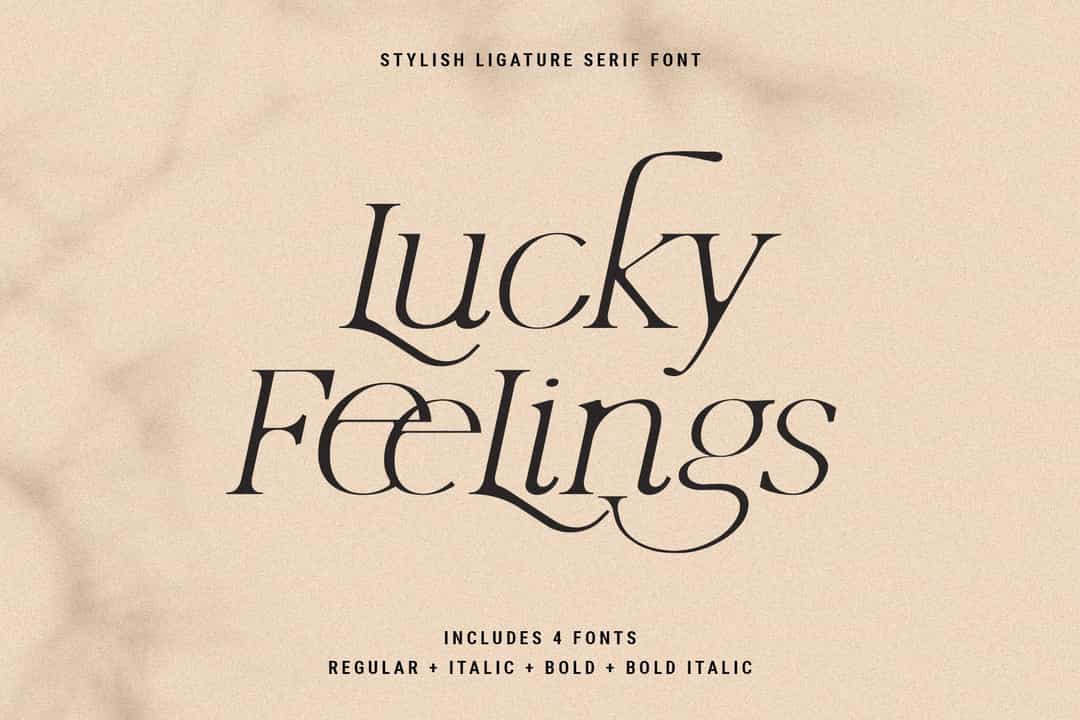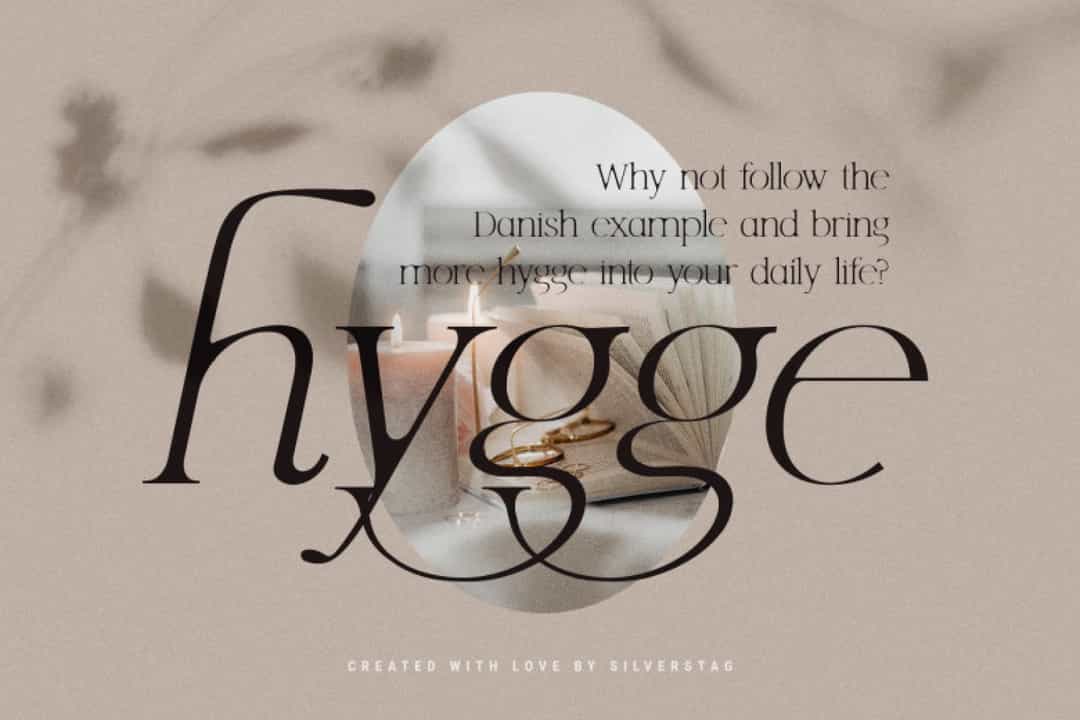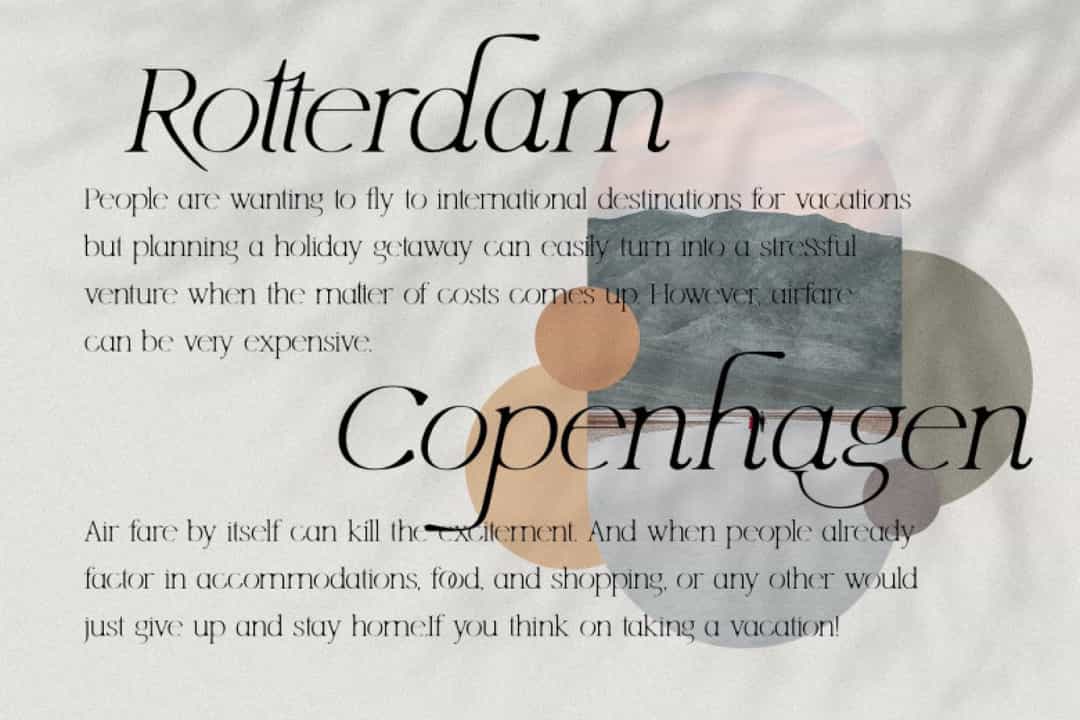
Lucky Feelings is an exquisite serif font with delicate lettering that makes for beautiful designs in wedding invitations, stationary items and social media posts! Take advantage of its gorgeous aesthetic to design breathtaking invitations.